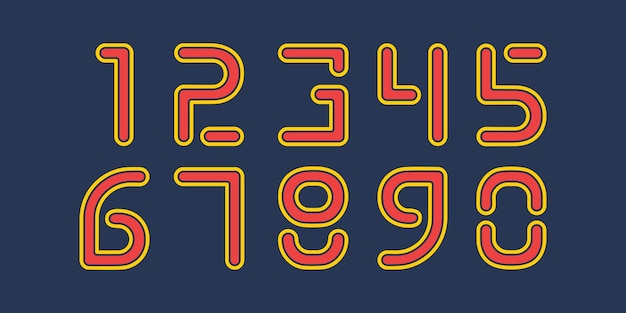
vector creative color geometry shapes' numerals font alphabet vector illustrations
Vector creative color geometry shapes' numerals font alphabet vector illustrations